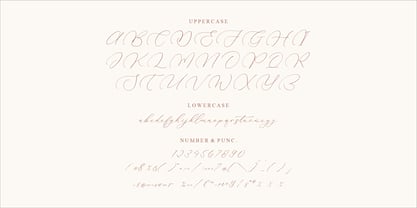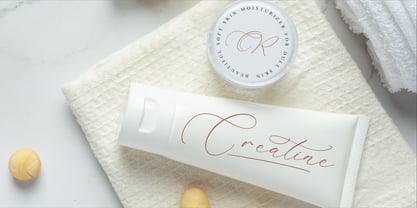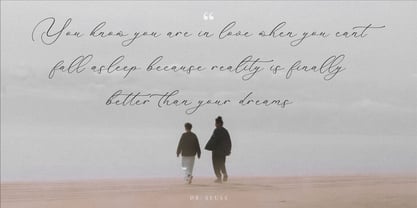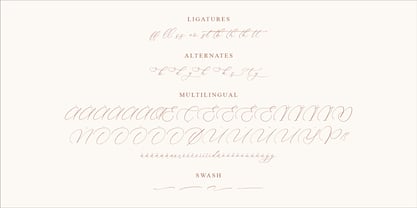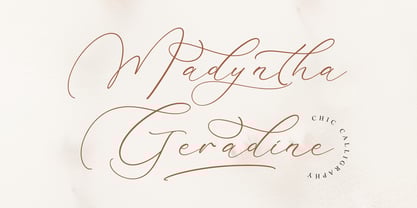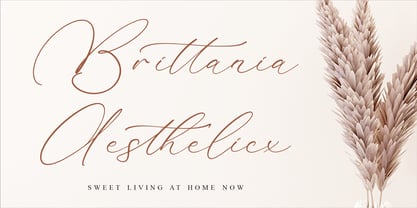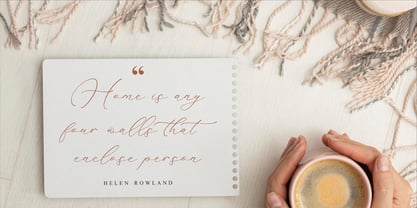
Madyntha Geradine
The Madyntha Geradine Font Family was designed by Heru Utama Putra and published by Letterena Studios. Madyntha Geradine contains 2 styles and family package options. More about this family
Madyntha Geradine is a chic calligraphy. This luxury script has its own unique style & modern look. This typeface is perfect for an elegant & luxury logo, book or movie title design, fashion brand, magazine, clothes, lettering, quotes, and so much more.